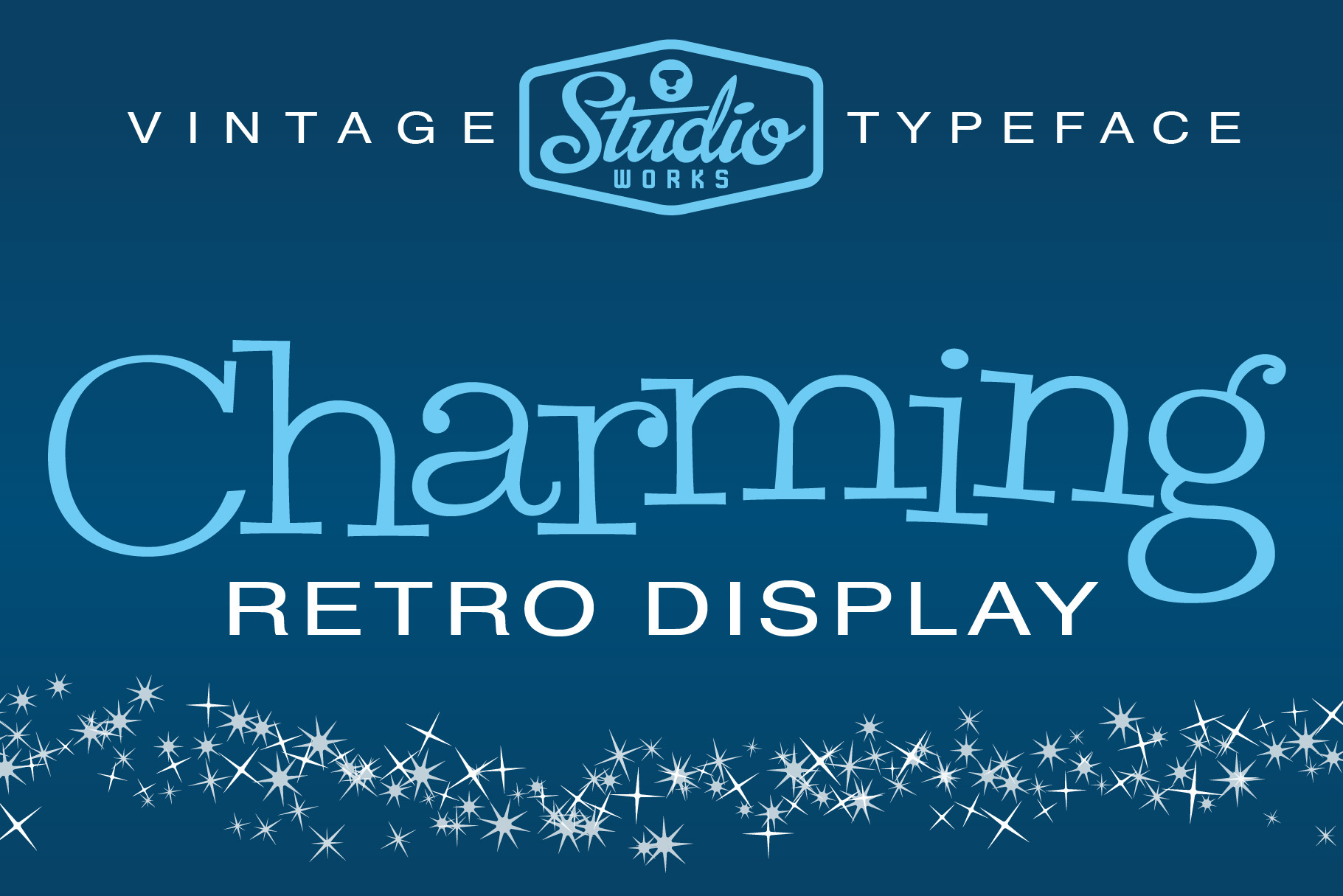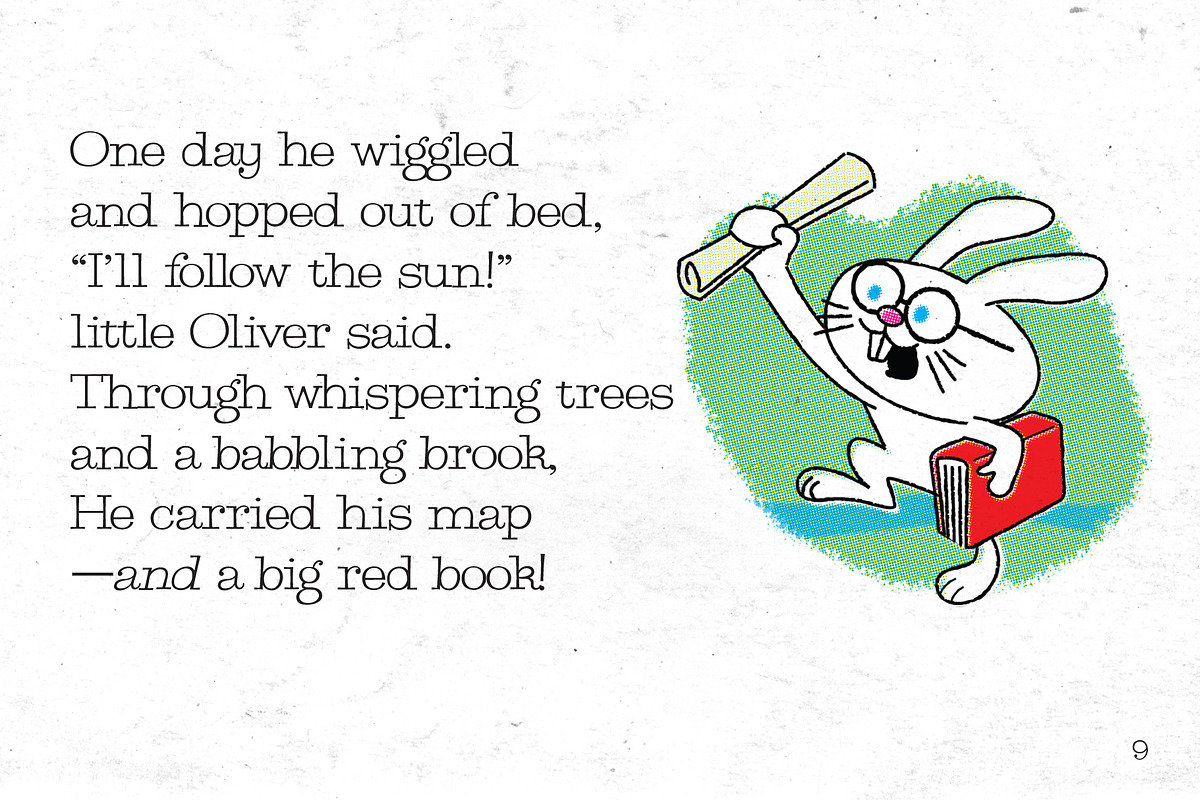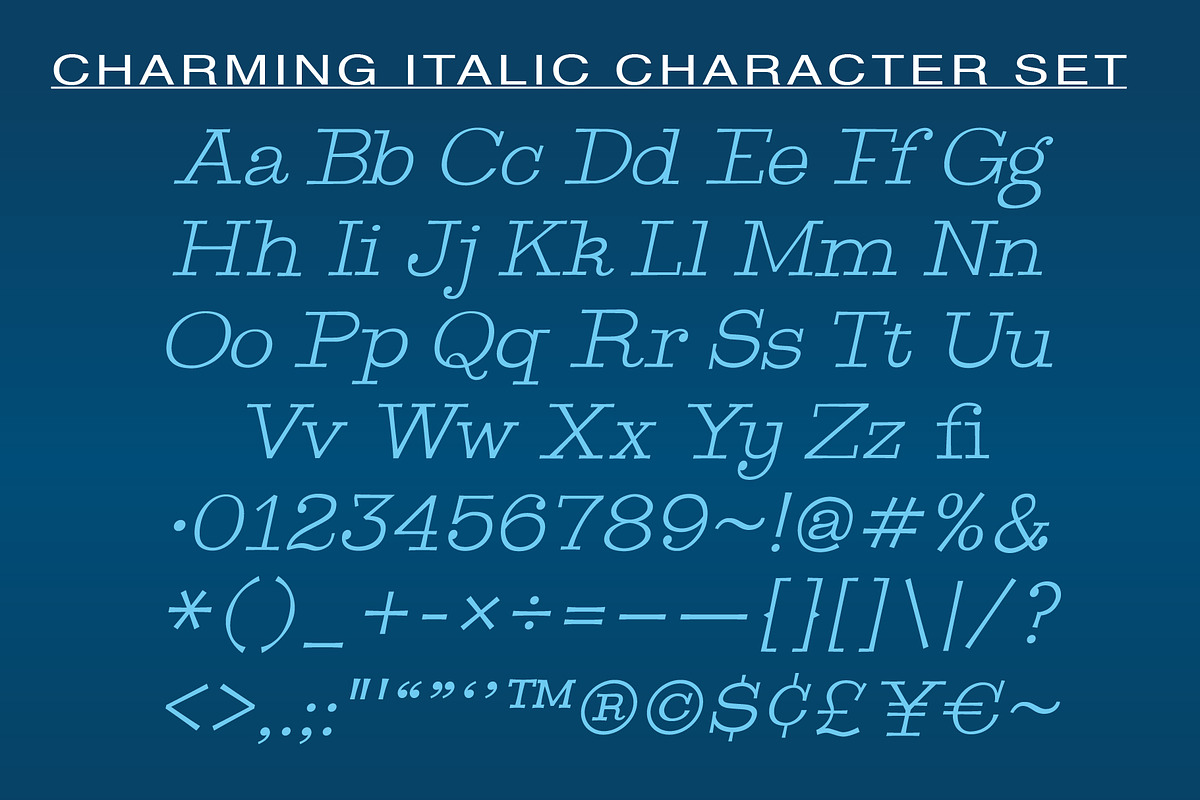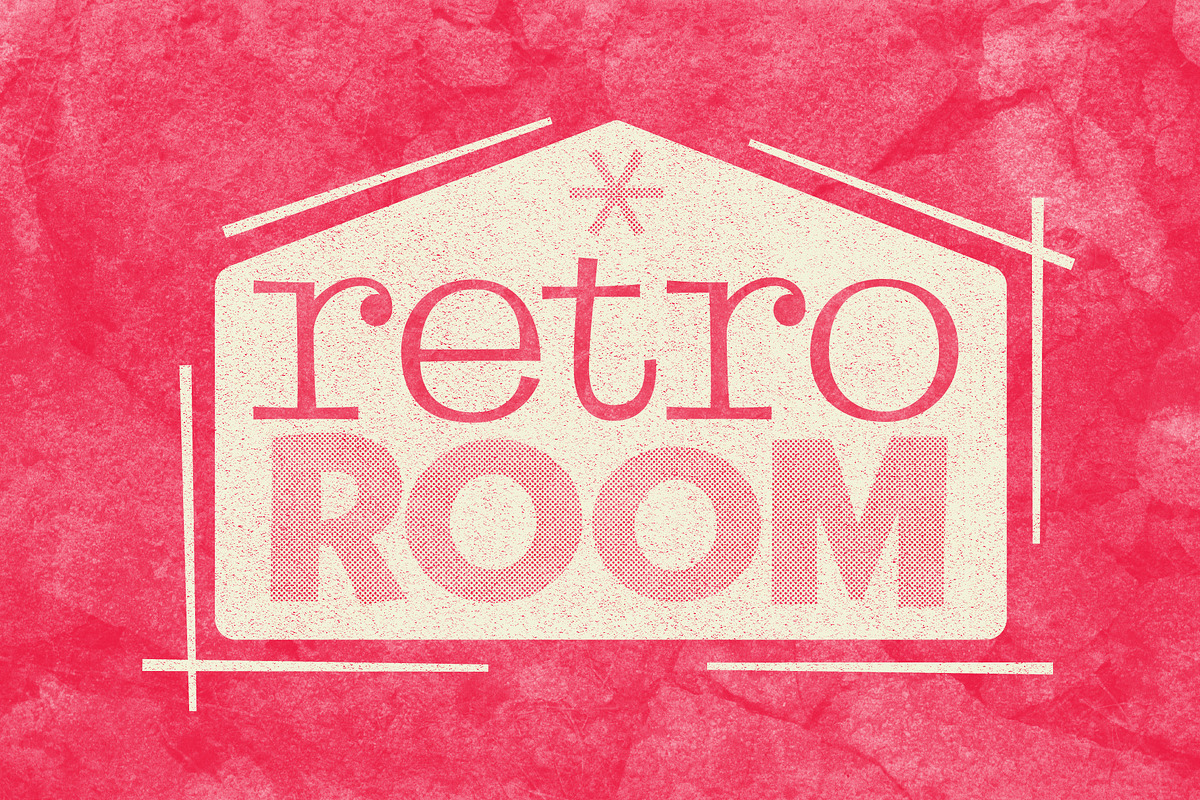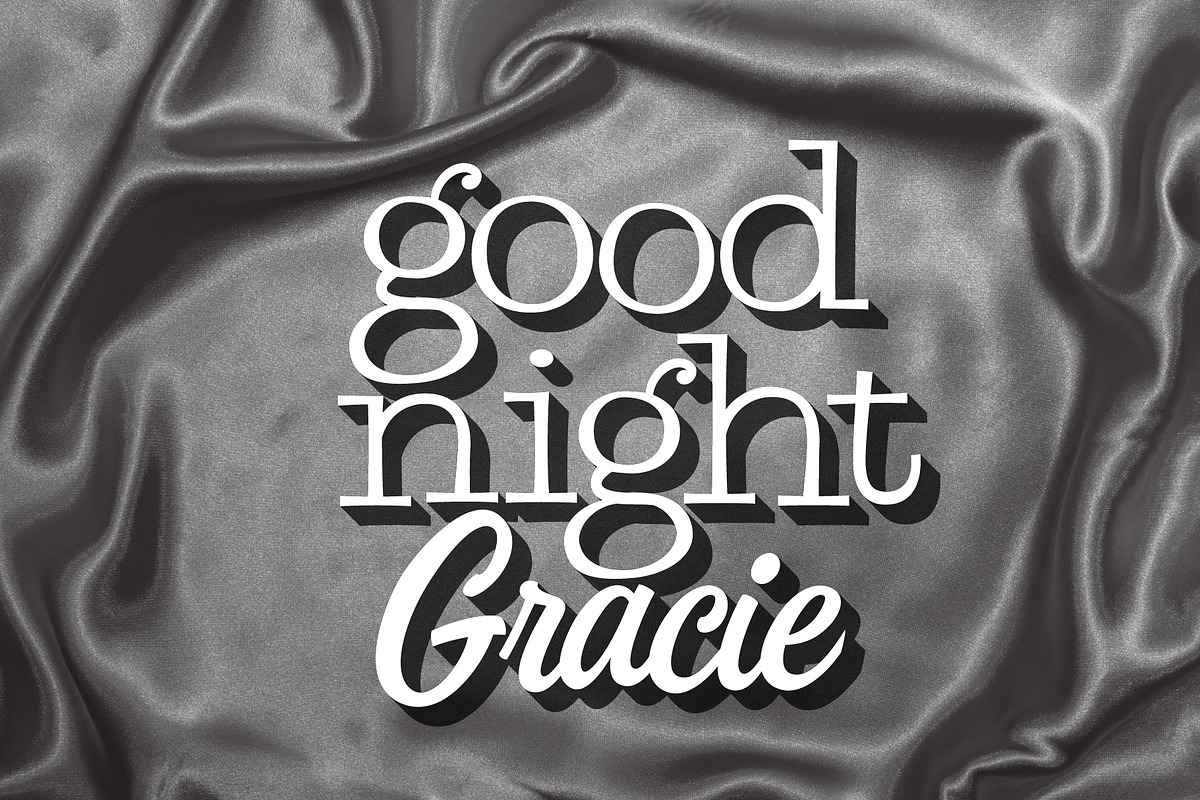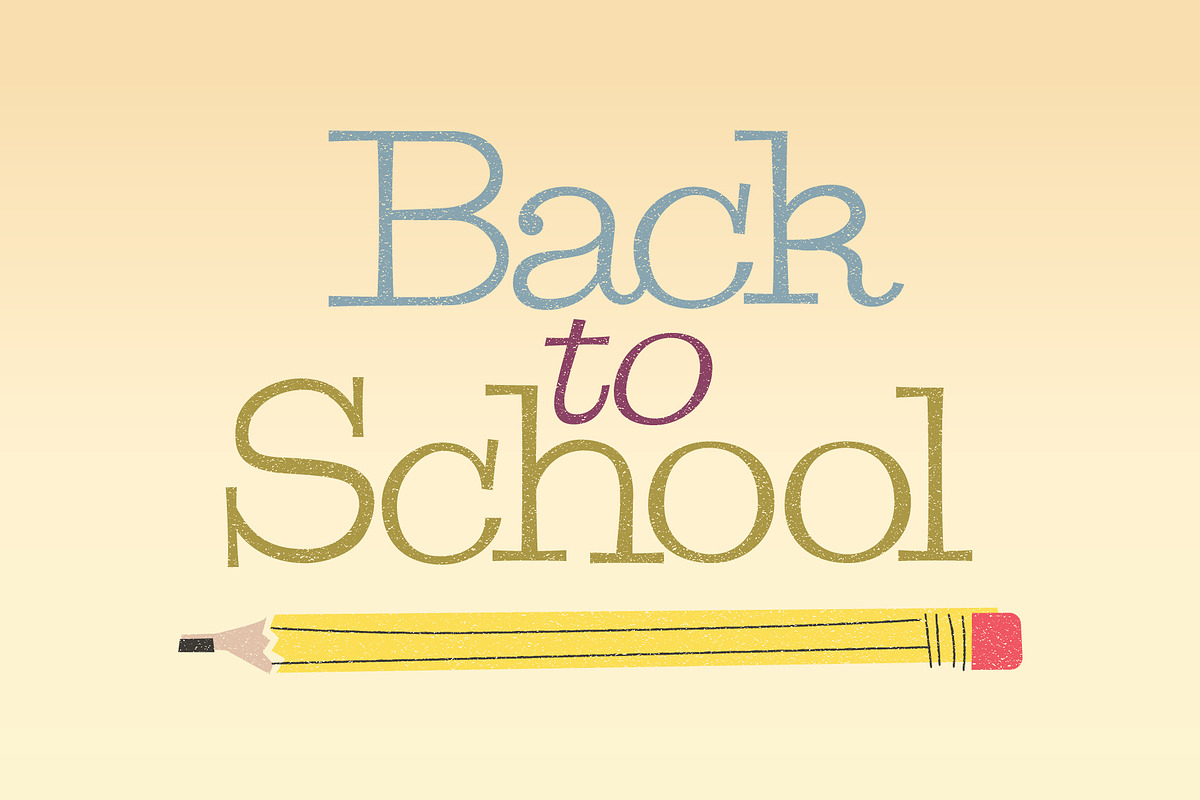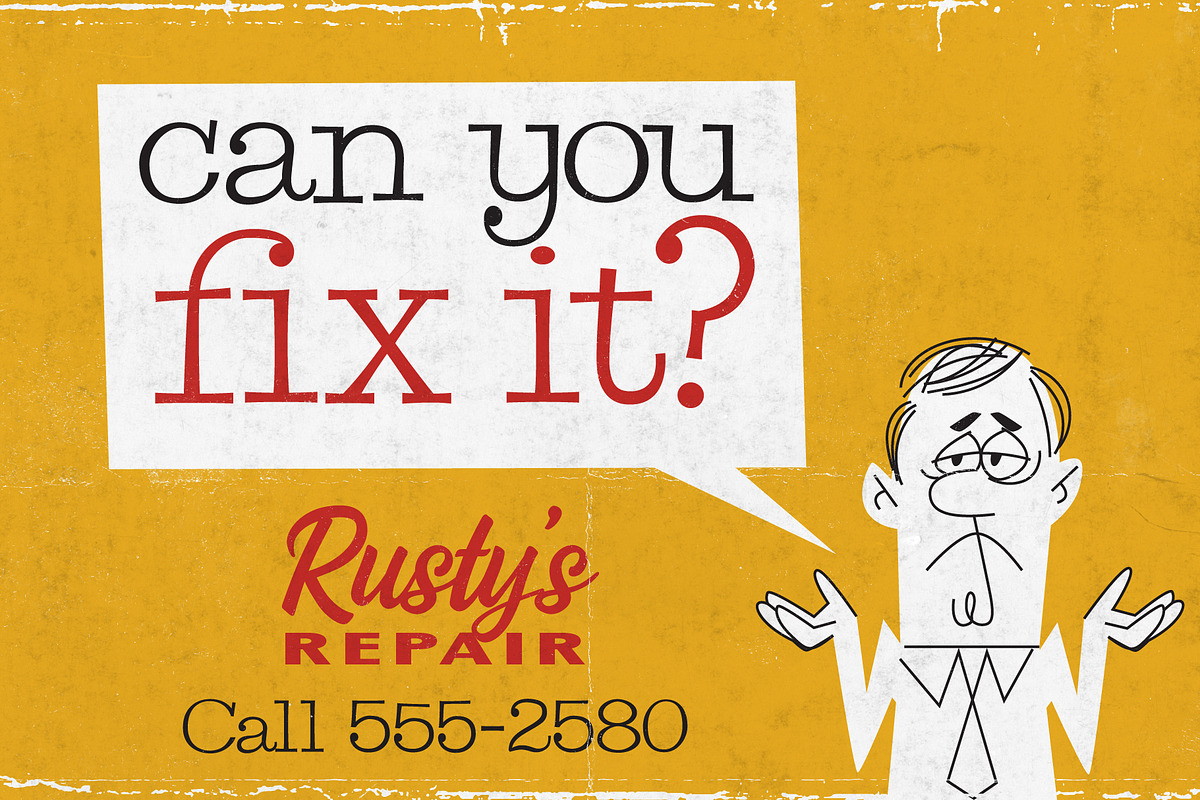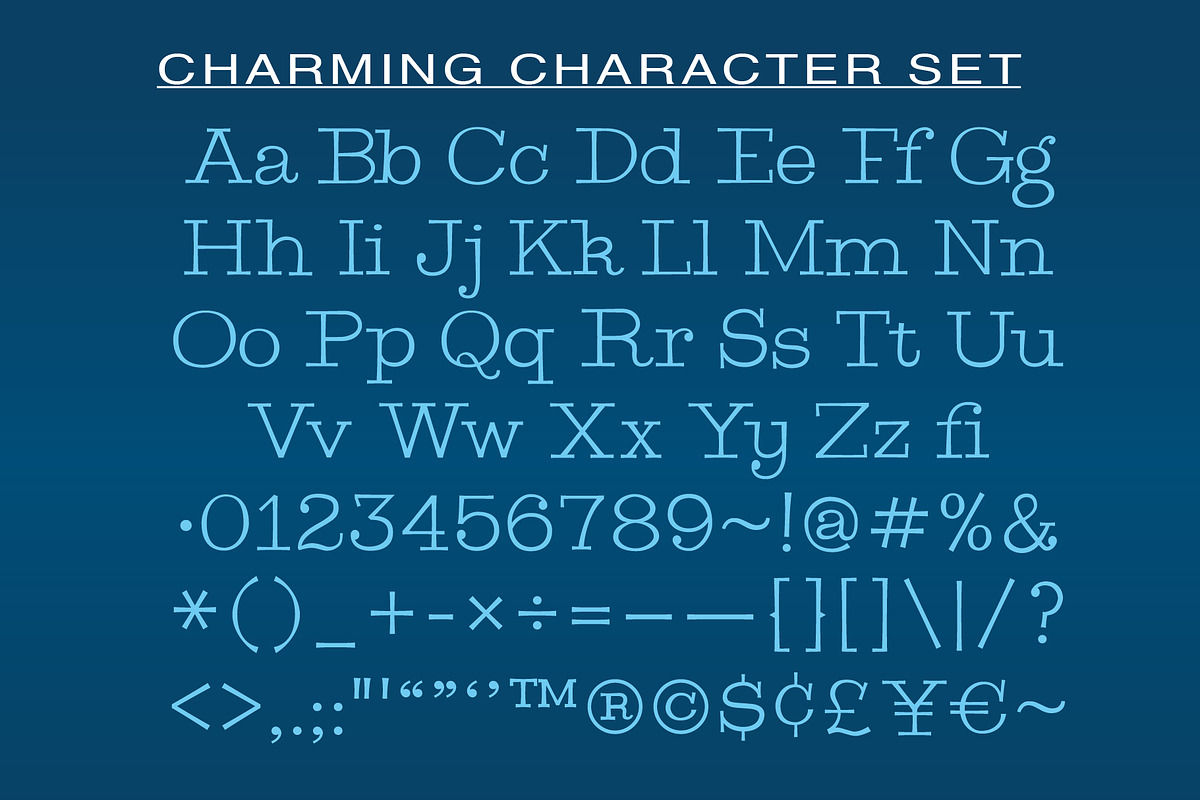
Charming | Retro Display Font!
Meet •• C H A R M I N G •• — an enchanting retro slab serif typeface from StudioWorks!
Add warmth and charisma with this graceful and light slab serif. Charming's gently coved serifs and wide stance support lightly contrasting strokes. Ball terminals and wedged beaks add classic ionic style. Inspired by handcrafted midcentury ad type, Charming will give your logos and labels a nostalgic, retro feel. Perfect for magazine headlines, book covers and print layouts that demand personality.
Charming features:
- Upper (A-Z) and lower case (a-z) characters
- Numbers (0-9)
- Standard punctuation and glyphs
- Regular and Italic character sets
From posters to apparel let Charming acquaint your projects with a touch of timeless sophistication.